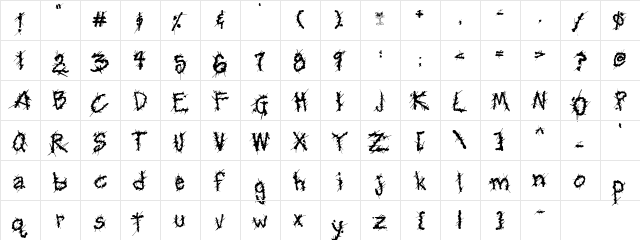
PC Cat Scratch Regular
Design Context for PC Cat Scratch Typeface
PC Cat Scratch is a composed and adaptable typeface that performs quietly and consistently across a wide range of design contexts.